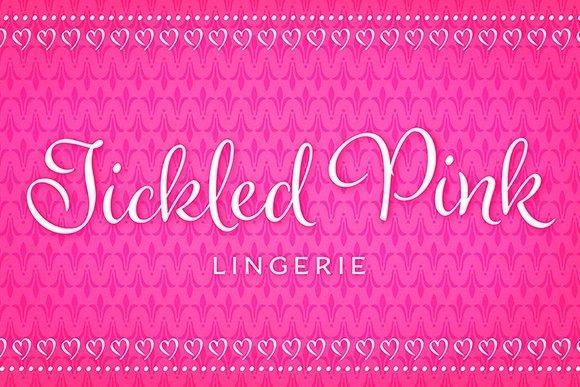
db-ku.com - Script & Handwritten -- A lively upright script based on letters inked with a pointed pen. In its default setting, Caprizant is understated and readable enough to use at smaller sizes — in short blocks of body copy it can easily mimic beautiful handwriting. Alternates of every letter, plus dozens of ligatures, provide convincingly human variation.